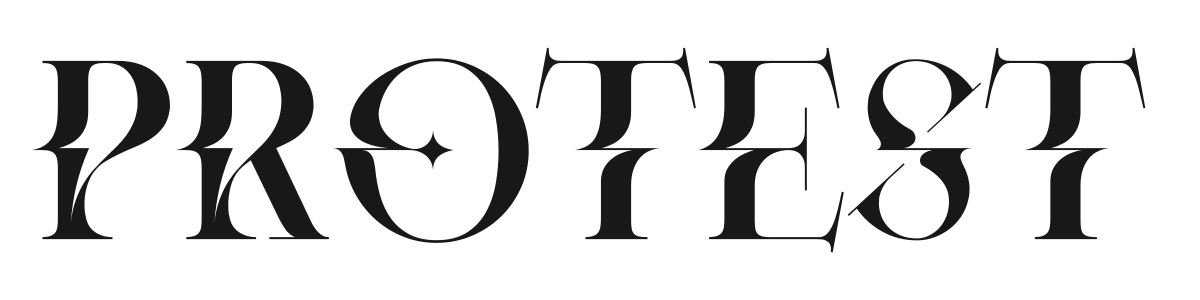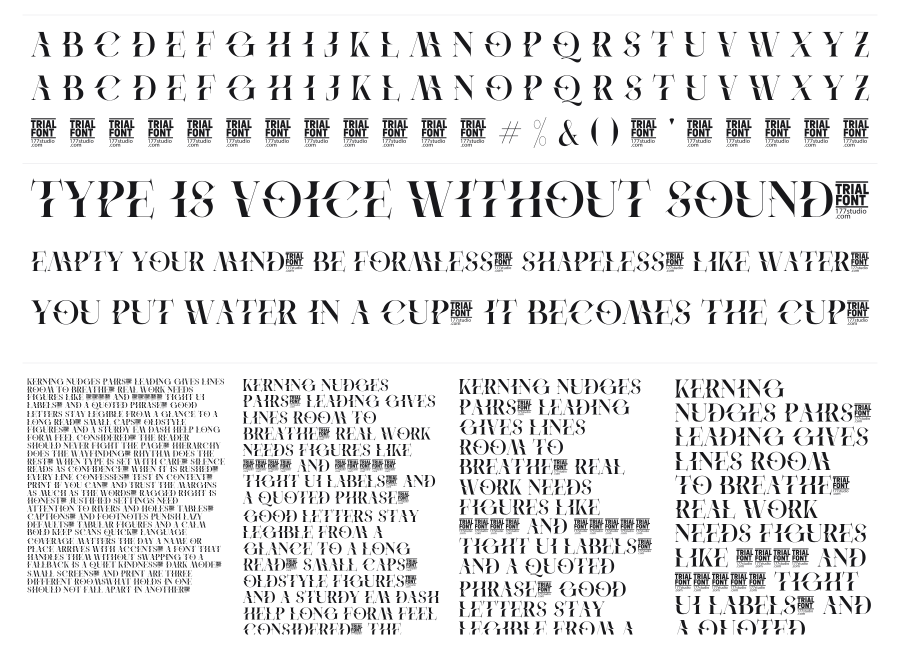
Protest
Protest is a wide, high-contrast serif with bold stems and near-hairline thins that push into Didone territory with an Art Deco sensibility. Decorative star-shaped accents embedded within the letters set it apart from a plain modern serif. It commands attention at large sizes and fits naturally into fashion, beauty, and luxury branding.